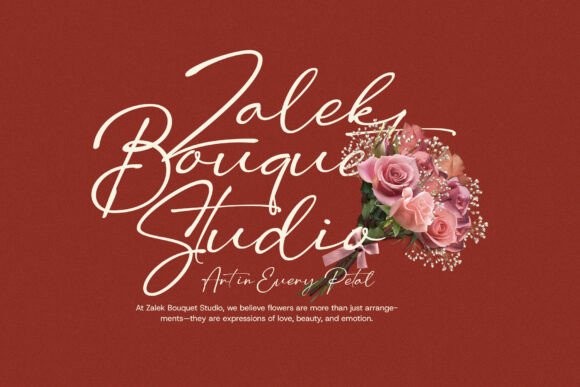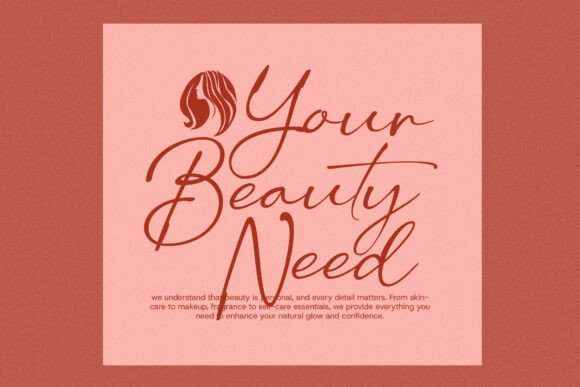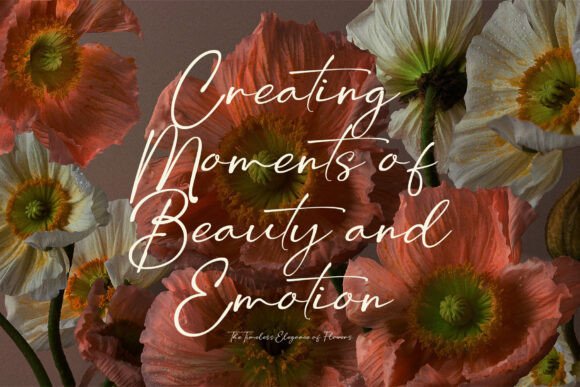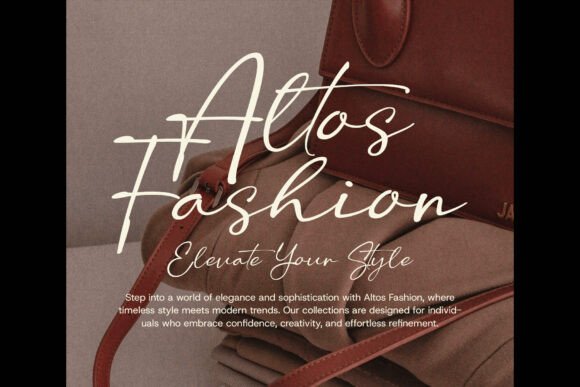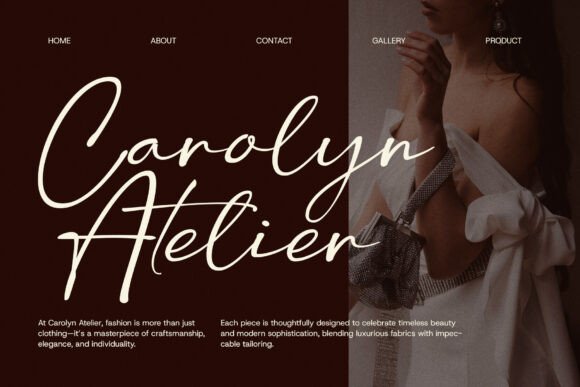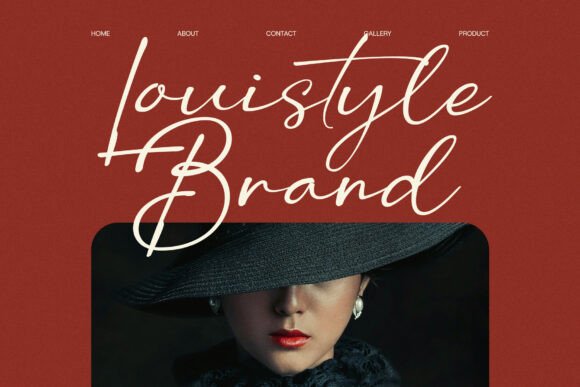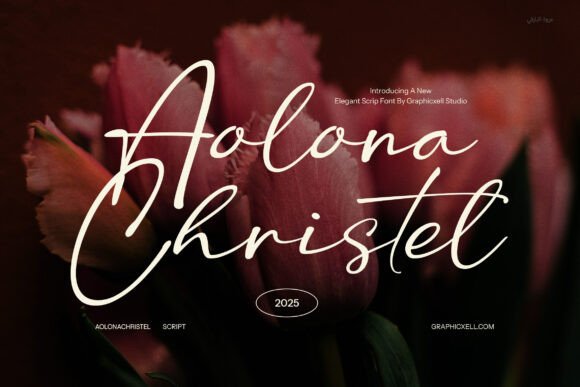
Aolona Christel Font: Elevate Your Designs with Elegance and Sophistication
In the world of typography, few fonts manage to capture the essence of elegance and sophistication as effortlessly as the Aolona Christel Signature Font. This stunning, elegant signature script typeface is designed to add a touch of class and style to any project, making it a versatile tool for designers and crafters looking to elevate their work. Crafted with natural hand strokes, Aolona Christel exudes a personal, authentic charm that sets it apart from more conventional typefaces.
The Characteristics of Aolona Christel Signature Font
Aolona Christel Signature Font is characterized by its fluid, flowing curves that give it a timeless feel. This beautiful font is perfect for projects that require an elegant and sophisticated aesthetic, such as branding, logo design, and corporate identities. The font’s natural hand-strokes bring a sense of warmth and personality to your designs, making them more relatable and engaging.
Versatility Across Industries
One of the standout features of Aolona Christel Signature Font is its versatility. It’s not just limited to corporate or branding projects; it also shines in creative industries. For musicians and filmmakers, this font is a go-to choice for album covers, song titles, and film branding, adding a touch of glamour and sophistication. In the world of product packaging, Aolona Christel’s graceful lettering adds a luxurious touch, making it perfect for high-end products or special edition releases.
Perfect for Boutique, Food, and Web Design
For those working in the boutique, food, or web design sectors, Aolona Christel Signature Font offers a unique flair that can set your content apart. Its elegant curves and sophisticated feel make it ideal for creating visually appealing and memorable designs. Whether you’re designing a logo, creating a website, or crafting marketing materials, this font brings a level of class and sophistication that can elevate your brand.
Crafting Memorable Designs
Aolona Christel Signature Font is more than just a typeface; it’s a tool for creating memorable and high-quality designs. Its ability to convey elegance and sophistication makes it perfect for a wide range of applications, from invitations and greeting cards to holiday designs and more. The font’s versatility and charm ensure that your designs will stand out, leaving a lasting impression on your audience.
Why Choose Aolona Christel Signature Font?
- Elegance and Sophistication: Aolona Christel brings a touch of class and style to any project.
- Versatility: Suitable for a wide range of uses, from branding and corporate identities to creative projects.
- Authentic Charm: Crafted with natural hand strokes, giving it a personal and authentic feel.
- Timeless Appeal: Its fluid, flowing curves ensure it remains timeless and relevant.
In conclusion, Aolona Christel Signature Font is a stunning addition to any designer’s toolkit. Its elegance, sophistication, and versatility make it the perfect choice for a wide range of projects. Whether you’re working on branding, creative projects, or simply looking to add a touch of class to your designs, Aolona Christel is sure to impress. With its authentic charm and timeless appeal, this font is not just a typeface but a powerful tool for creating memorable and high-quality designs.